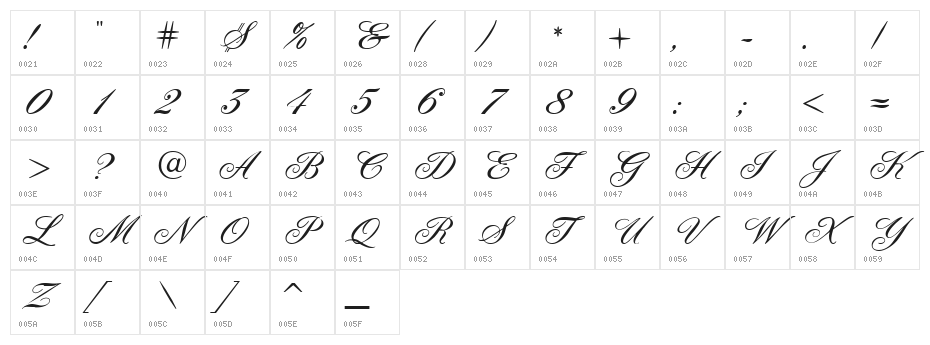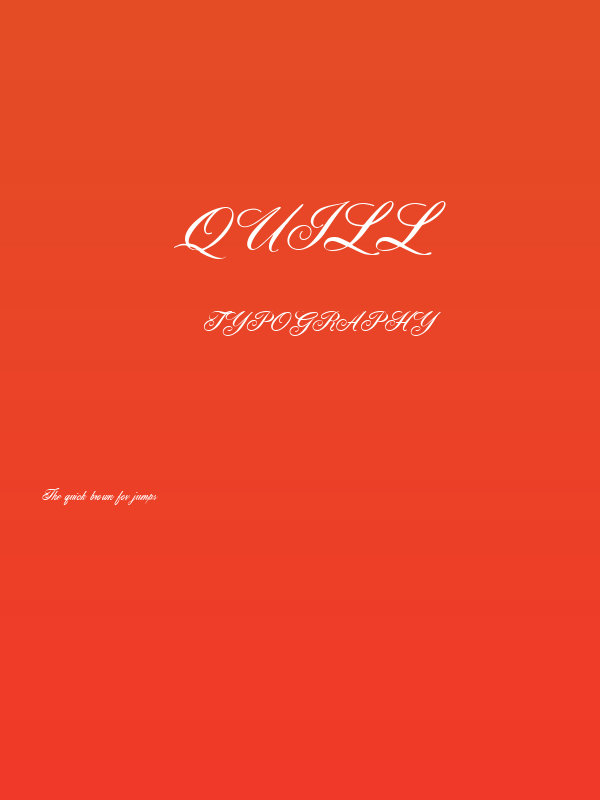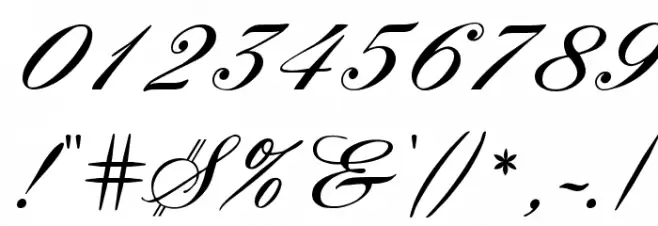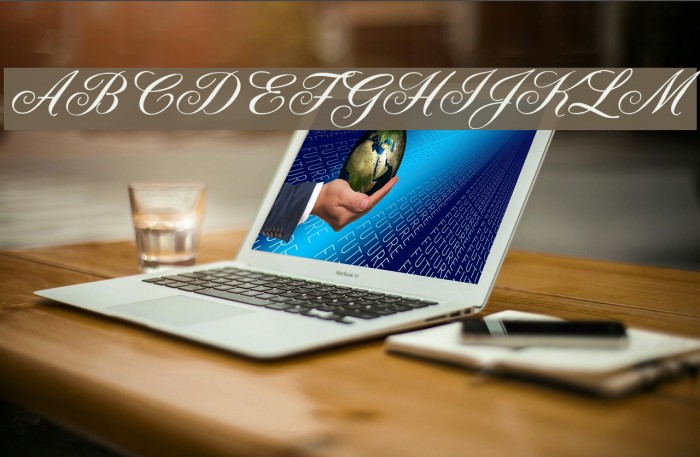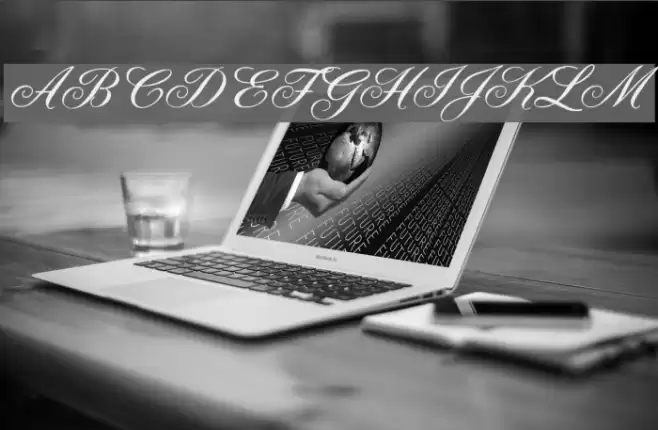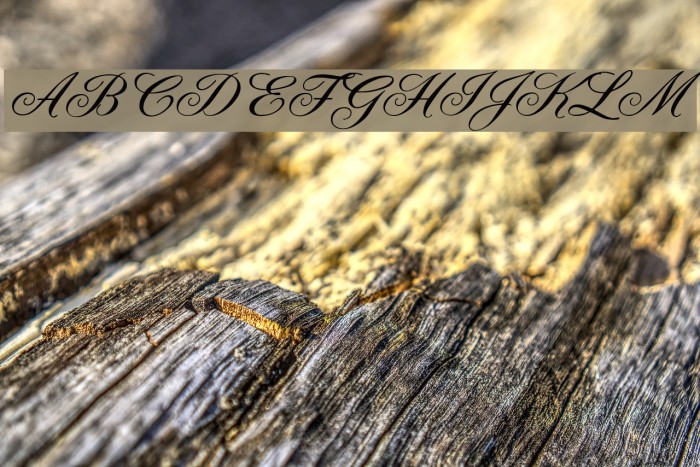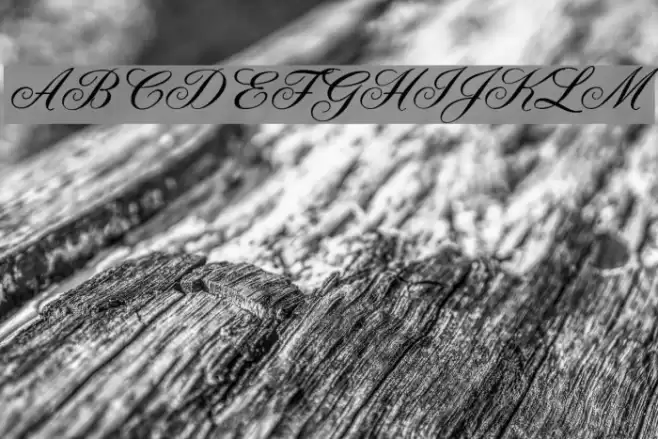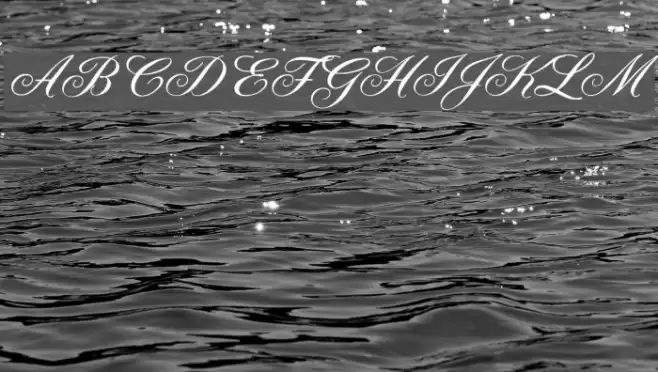
Quill Font
Quill Description
This elegant script font features flowing, cursive letterforms that exude sophistication and grace. The uppercase letters are ornate with intricate loops and flourishes, while the lowercase letters maintain a consistent, smooth flow. The numerals and special characters are designed with the same attention to detail, ensuring a cohesive look across all glyphs. This font is ideal for projects that require a touch of elegance and formality, such as wedding invitations, formal event programs, or luxury brand logos. Its high contrast in stroke thickness adds to its refined appearance, making it stand out in any design.
| Overall Style | Elegant, Formal |
| Use Case | Logos, Invitations, Decorative text |
| Proposed Projects | Wedding invitations, formal event programs, luxury brand logos, elegant stationery. |